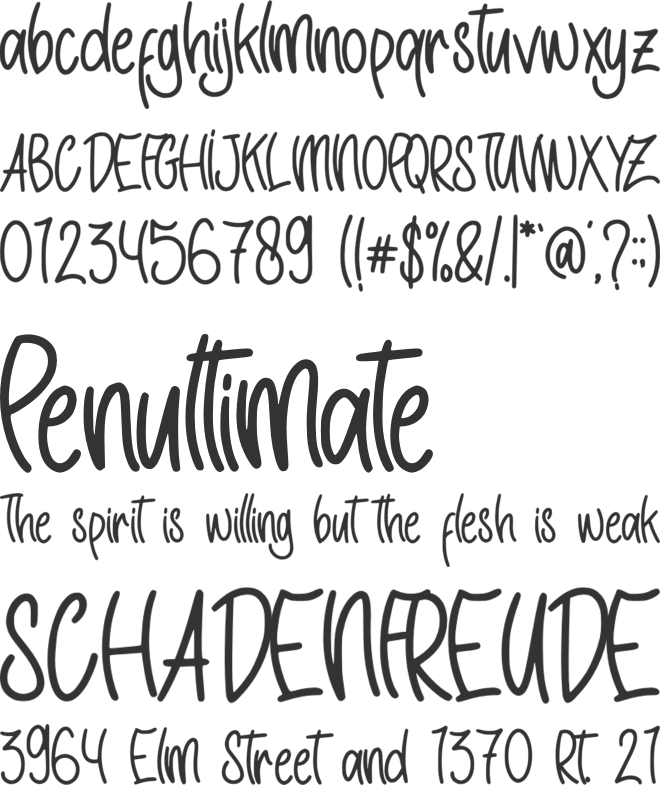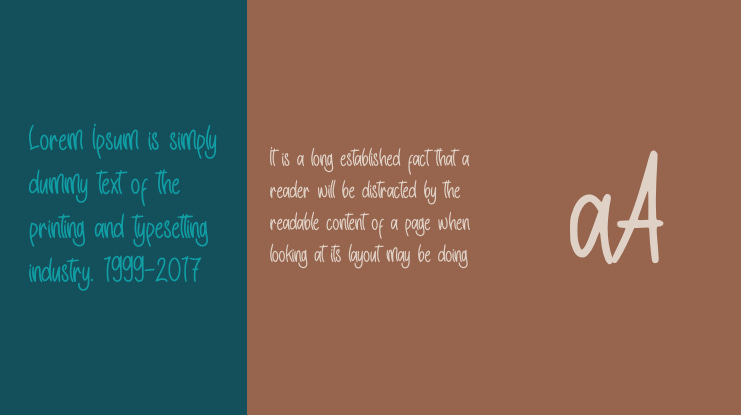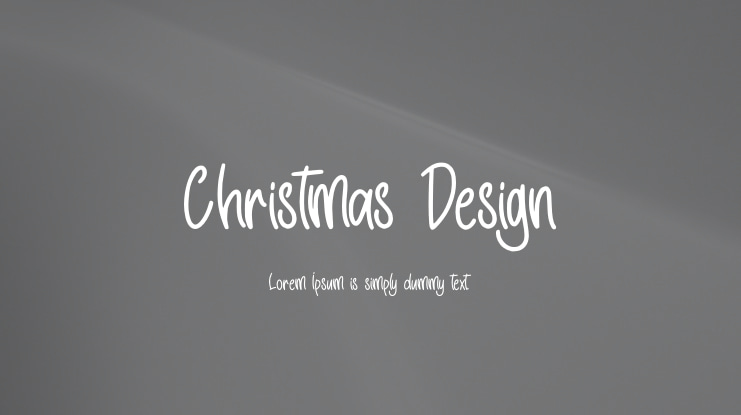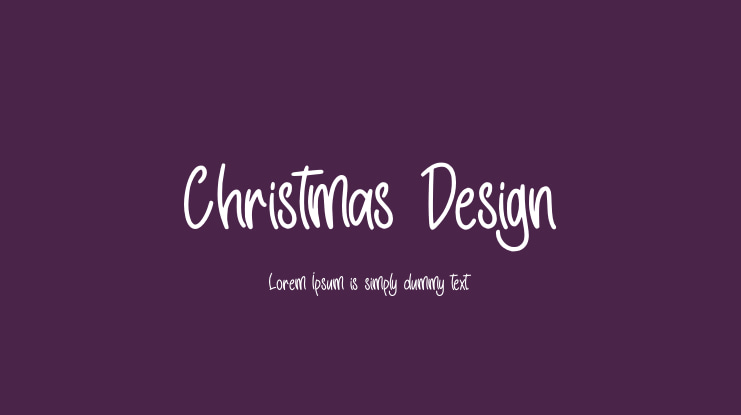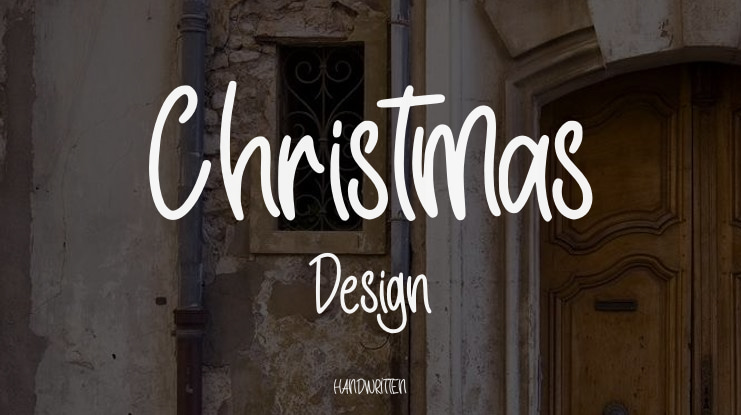
Christmas Design Font Family
Christmas Design is a festive handwritten font, ideal for holiday-themed projects. Its elegant strokes and cheerful style are perfect for greeting cards, decorations, and invitations, adding a warm and joyful touch to seasonal designs.